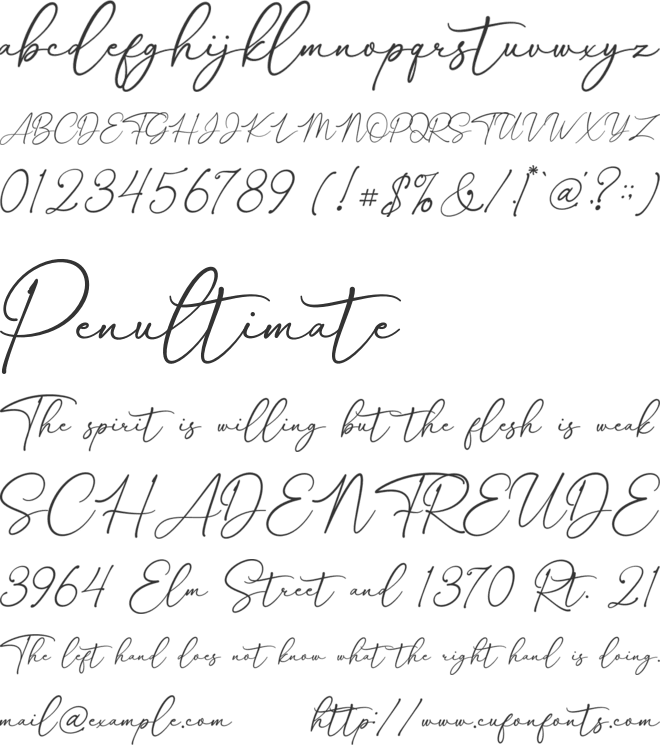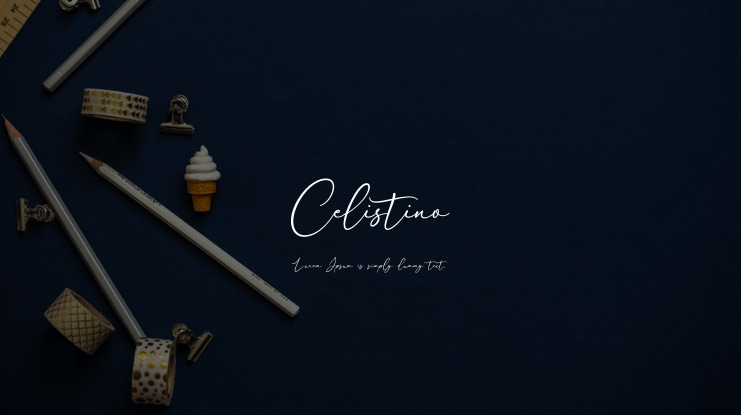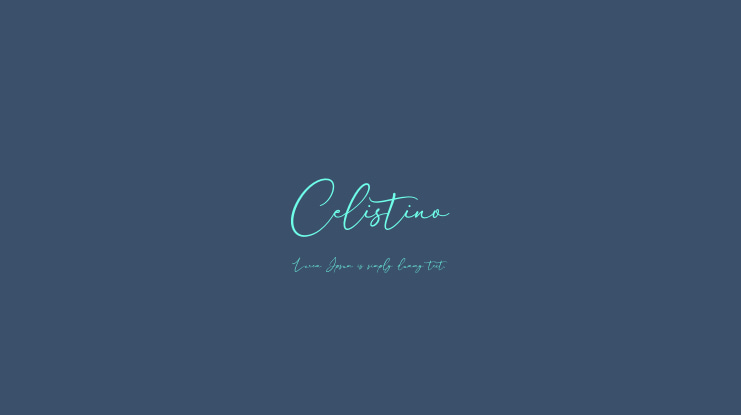
Celistino Font
Celistino Handwritten Font is designed with natural elegance and precision, making it ideal for branding, websites, and editorial designs.